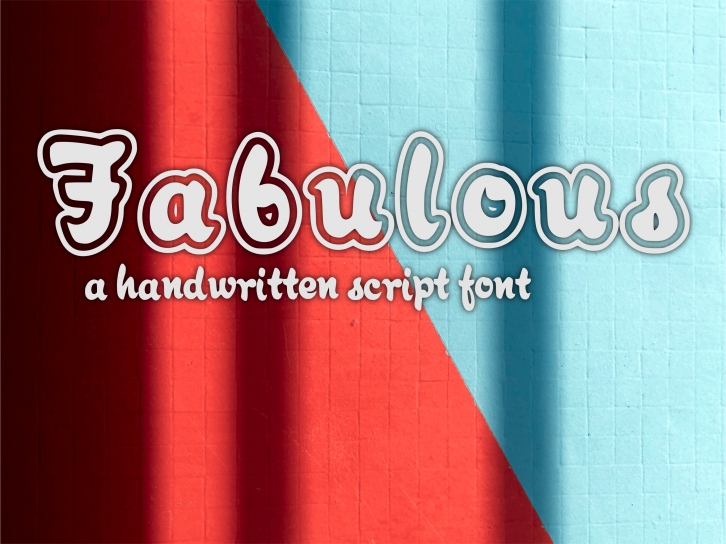
Fabulous is a bold handwritten font family capable of taking any item out of the ordinary! Use it to create spectacular marketing materials, business cards, thank you notes, etc.